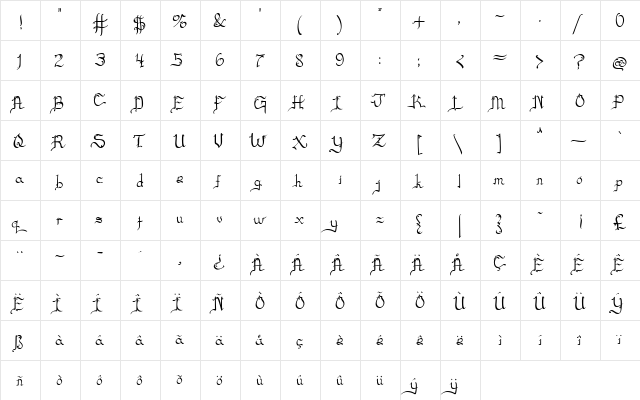
Blackscript Regular
Design Context for Blackscript Typeface
Blackscript brings a calligraphic fluidity to the page — its connecting strokes and expressive curves give it an unmistakably human quality.
Font Pairing: Combine Blackscript with a simple geometric sans for maximum contrast — the tension between flowing curves and clean structure is a classic typographic pairing.
Pro Tip: Use Blackscript for short runs of text — names, titles, or taglines. Extended body copy in script faces tires the eye quickly.